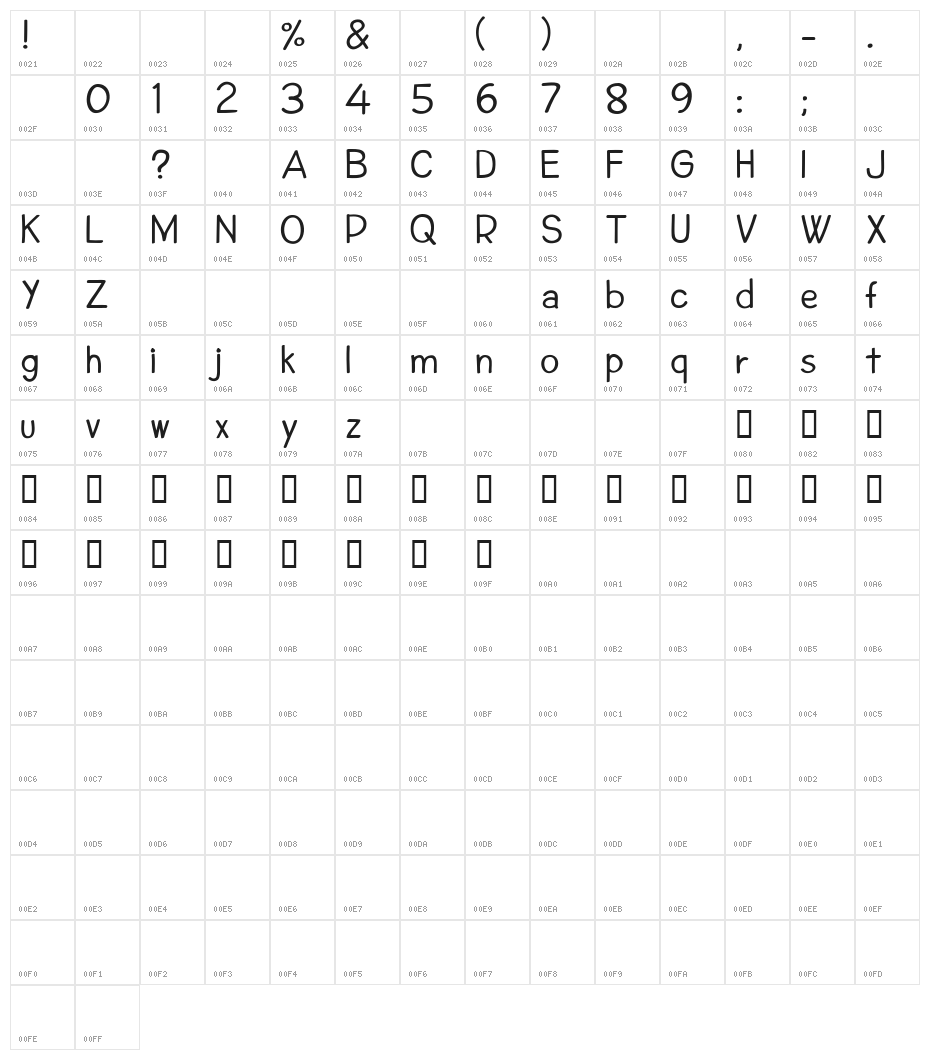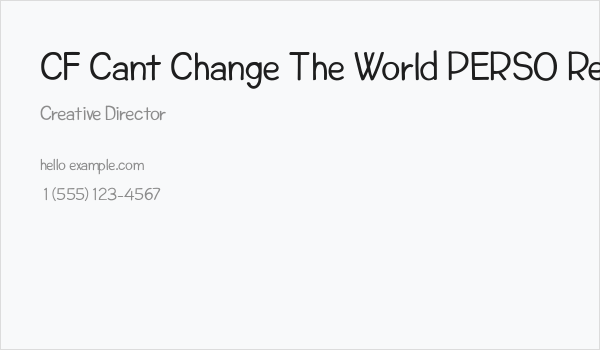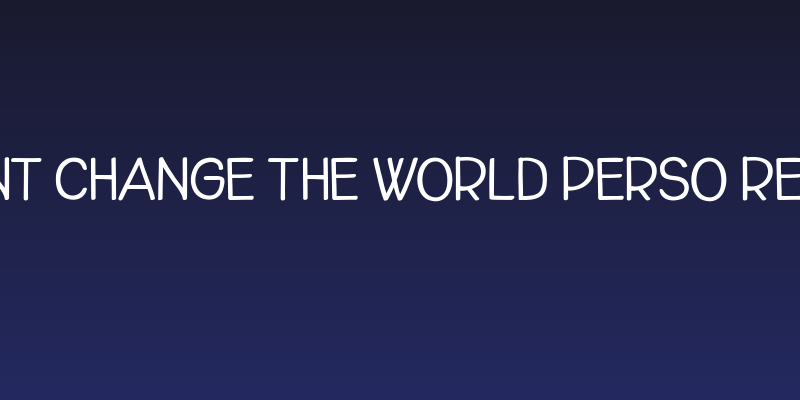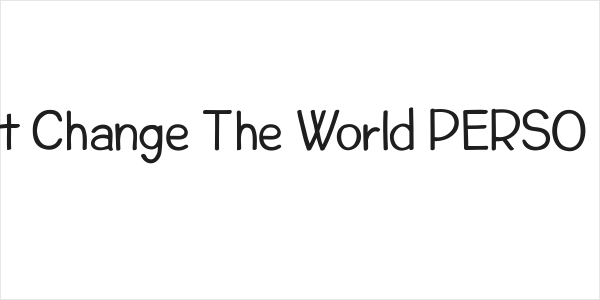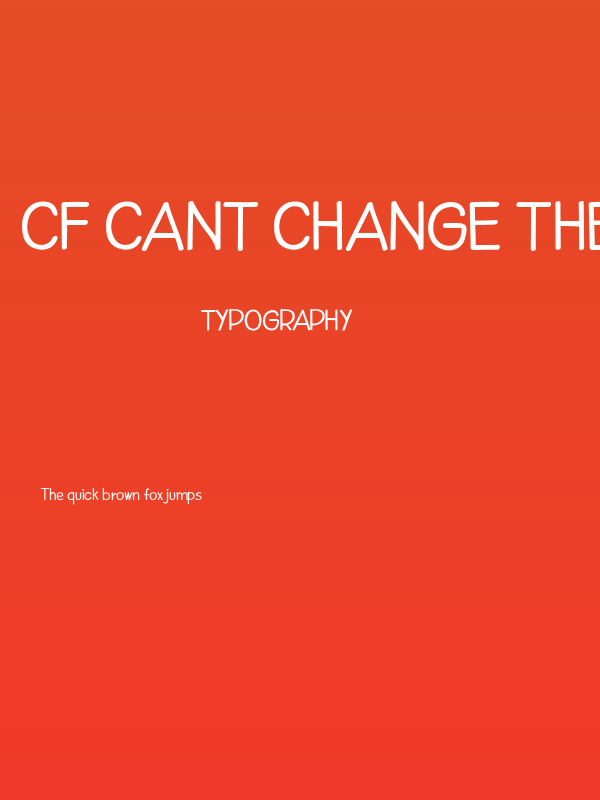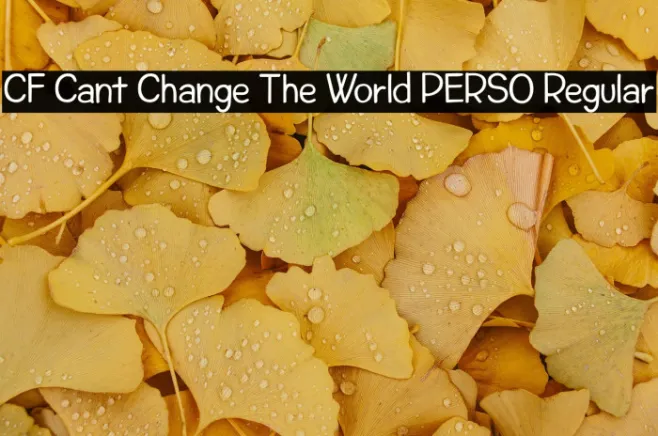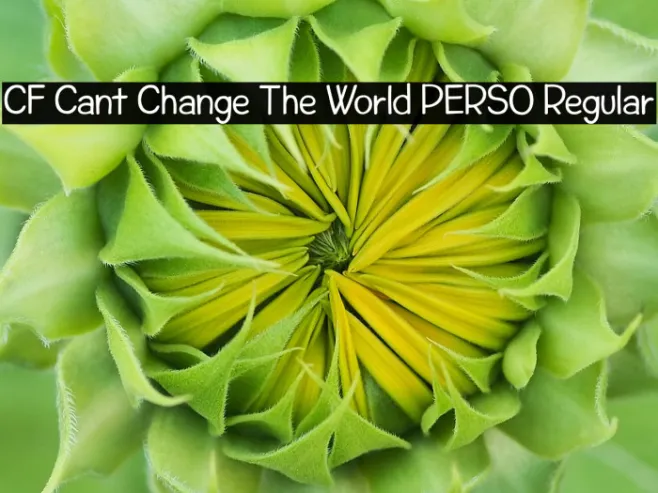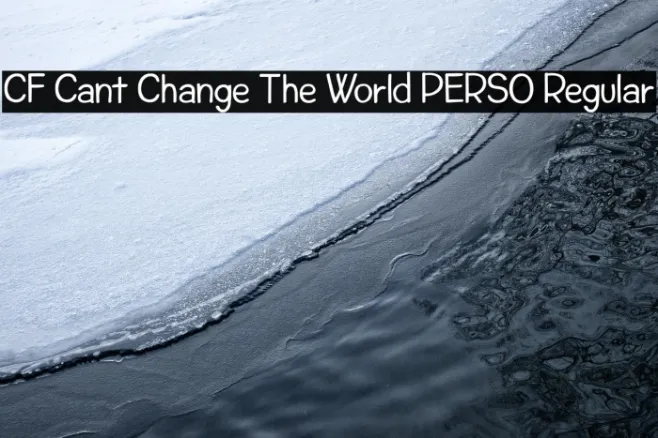
CF Cant Change The World PERSO Regular Font
CF Cant Change The World PERSO Regular Description
This font features a playful and casual style with rounded edges and a hand-drawn appearance. The characters are evenly spaced, giving it a clean and approachable look. The uppercase and lowercase letters maintain a consistent height, contributing to its readability. The numerals and special characters follow the same design principles, ensuring uniformity across all glyphs. Its informal and friendly vibe makes it suitable for a variety of creative projects.
| Use Case | Headlines, Logos, Informal text |
| Proposed Projects | Ideal for children's books, greeting cards, casual branding, and social media graphics. |